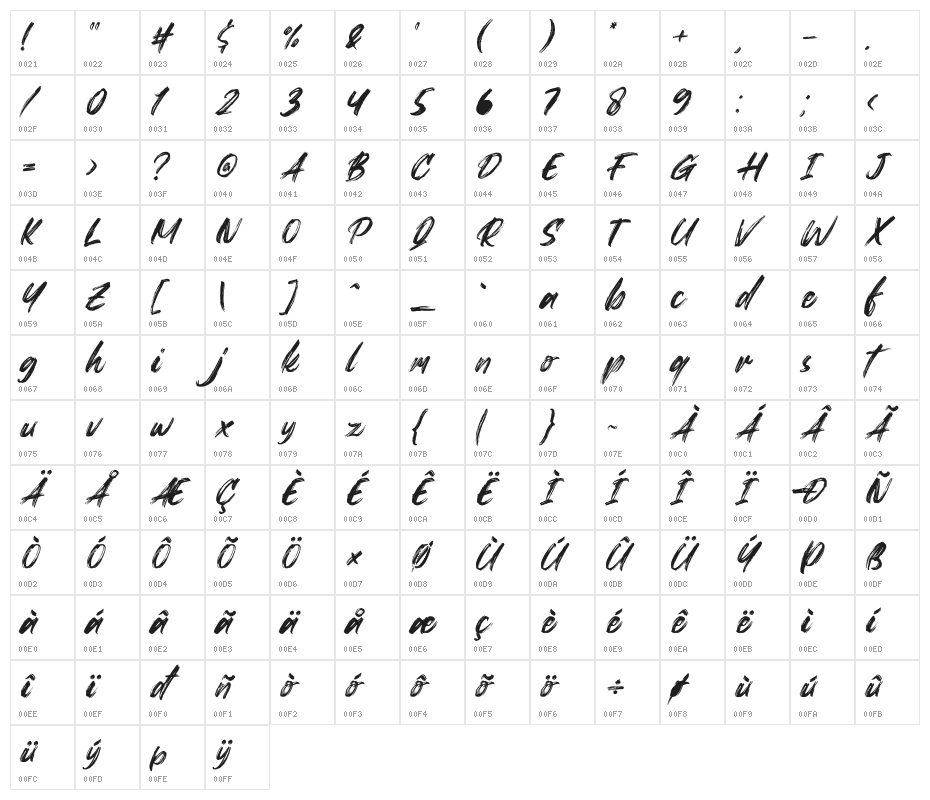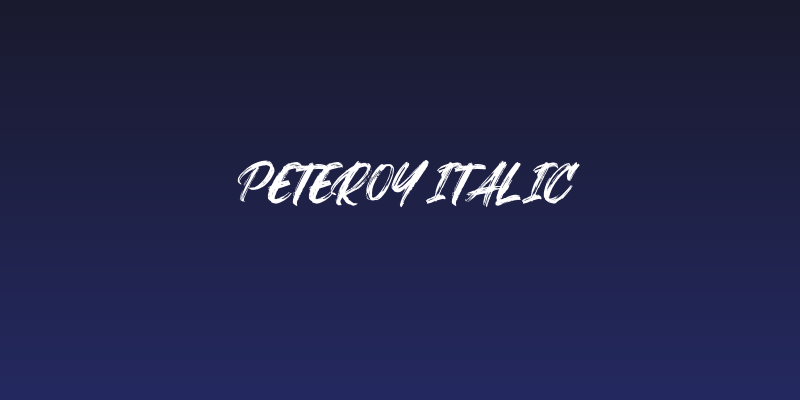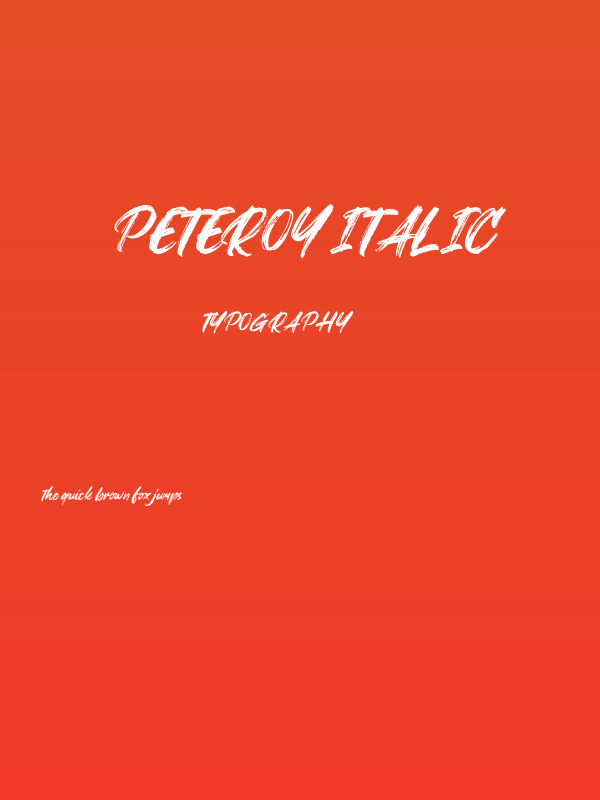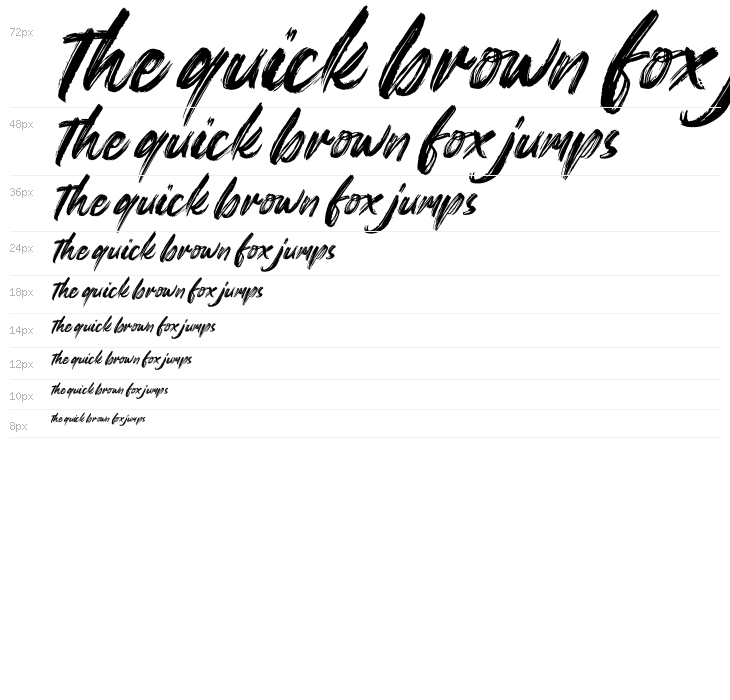
Peteroy Italic Font
Peteroy Italic Description
This font features a dynamic and expressive style, characterized by its bold, brush-like strokes that convey a sense of movement and energy. The letters are slanted, enhancing the italicized appearance, and each character is uniquely crafted with varying stroke thickness, adding to its artistic flair. The uppercase and lowercase letters maintain a consistent flow, while the numbers and special characters complement the overall aesthetic. This font's design is both modern and artistic, making it suitable for creative projects that require a touch of personality and flair.
| Overall Style | Modern, Artistic |
| Proposed Projects | Ideal for branding, posters, artistic invitations, and any project needing a bold, expressive touch. |